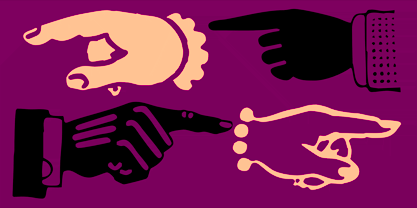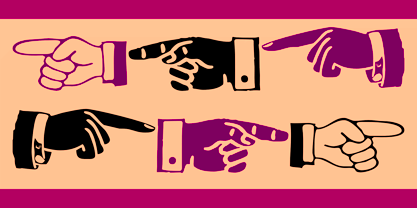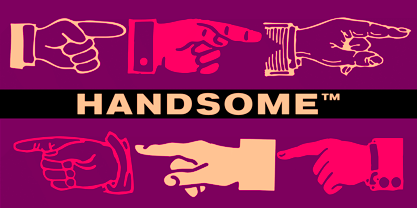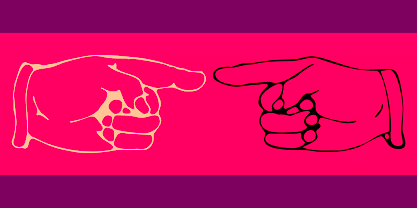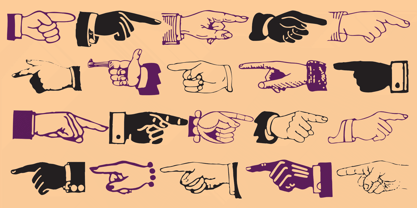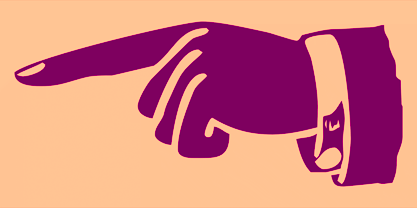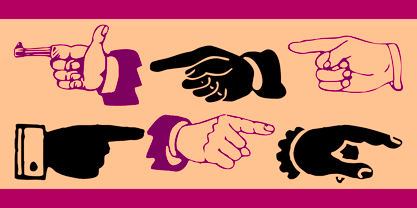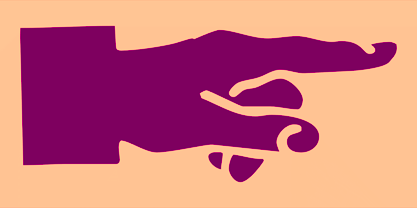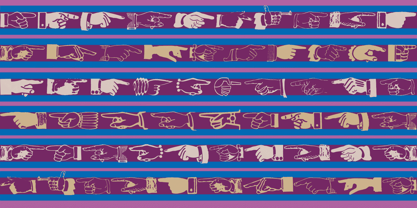
Handsome™
by CastleType
The Handsome Font Family was designed by Jason Castle and published by CastleType. Handsome contains 1 styles.
A collection of over 30 antique style hands; the typeface includes the hands facing both right and left.
Designers: Jason Castle
Publisher: CastleType